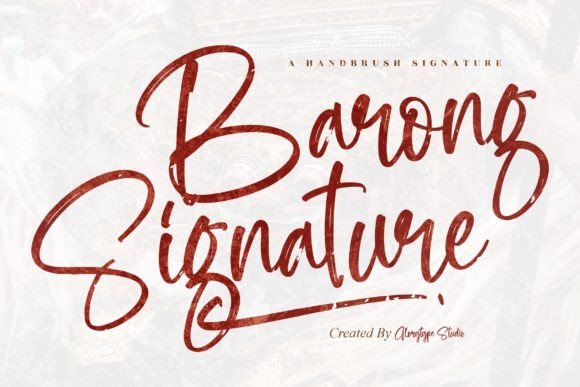
Immerse yourself in the world of Barong Signature, a captivating script font that dances across your screen with its graceful strokes and enchanting curves. This alluring creation from Glorytype Studio personifies elegance and charm, poised to leave an everlasting impression on your designs.
Embrace the beauty of Barong Signature, a font designed to leave you spellbound. Its delicate lines and gentle flow evoke a sense of joy and romance, effortlessly adding a touch of sophistication to any project. Whether you're crafting branding materials, creating wedding invitations, or designing a fashion lookbook, Barong Signature promises to elevate your vision with its timeless allure.
Unleash the power of versatility with Barong Signature. This extraordinary font transcends boundaries, seamlessly adapting to a myriad of design endeavors. Its inherent charm shines through in logos, greeting cards, marketing campaigns, and countless other applications. Experience the transformative power of Barong Signature as it breathes life into your creative aspirations.
With Barong Signature, you're not just acquiring a font; you're embarking on a journey of artistic expression. Its PUA encoding unlocks a treasure trove of glyphs and ligatures, empowering you to unleash your creativity and bring your designs to life. Let Barong Signature be your muse, guiding you towards design masterpieces that captivate and inspire.
Indulge in the artistry of Barong Signature, a font that captivates with its elegance, versatility, and boundless charm. Join the chorus of designers who have succumbed to its allure, using it to create stunning designs that resonate with audiences worldwide. Embrace the beauty of Barong Signature and embark on a creative journey that knows no limits.